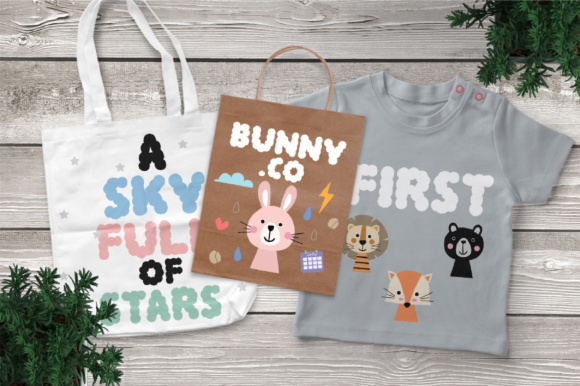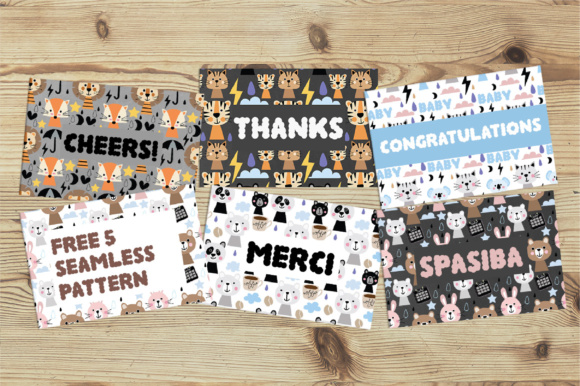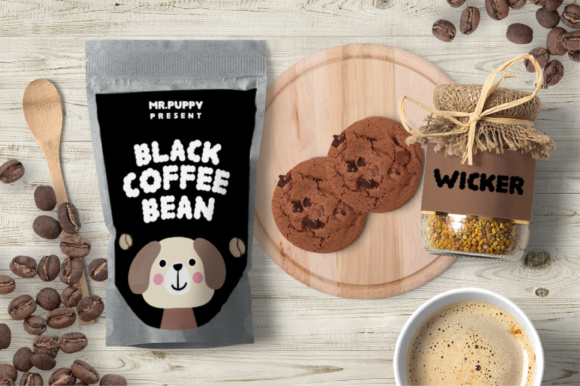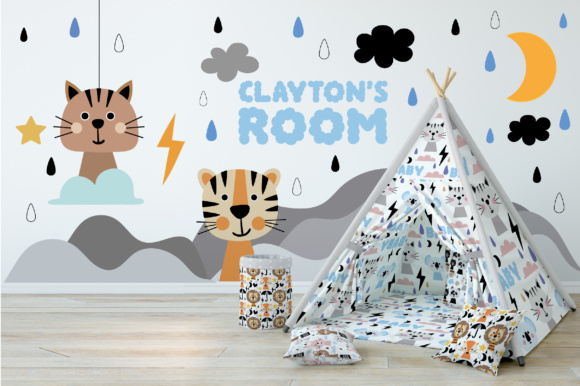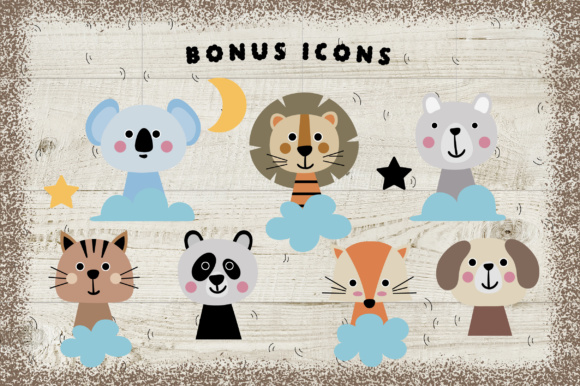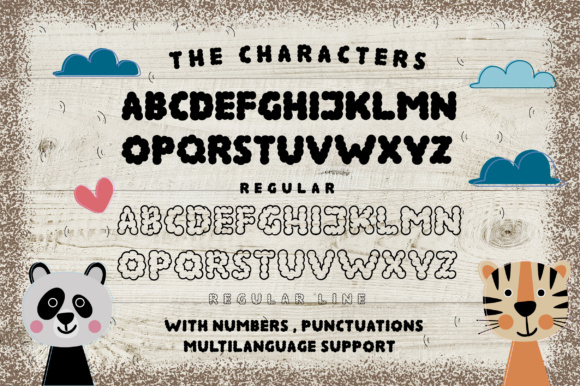
Introducing Altocumulus Font: Elevate Your Designs with a Cloud-Inspired Twist
Are you tired of using the same old fonts in your designs? Look no further! Altocumulus Font is here to take your creative projects to new heights. Inspired by the majestic altocumulus clouds, this font is not only visually stunning but also incredibly versatile. In this article, we’ll dive into the features and benefits of Altocumulus Font, and explore how it can become your go-to choice for all your design needs.
A Bold and Unique Font for Creative Minds
Altocumulus Font is a bold and eye-catching typeface that’s perfect for designers, crafters, and anyone looking to add a touch of personality to their work. With its cloud-inspired design, this font is sure to stand out from the crowd and leave a lasting impression on your audience. Whether you’re working on a logo, brochure, or social media graphics, Altocumulus Font is the perfect choice.
Two Styles to Suit Your Design Needs
One of the standout features of Altocumulus Font is its versatility. The font comes in two different styles: regular and lined. The regular style is perfect for bold and eye-catching designs, while the lined style adds a touch of sophistication and elegance. Whether you’re looking for a font that’s fun and playful or professional and sleek, Altocumulus Font has got you covered.
Acute Animal Icons to Add a Touch of Whimsy
But that’s not all! Altocumulus Font also comes with a set of acute animal icons that are sure to add a touch of whimsy to your designs. From cute and cuddly creatures to majestic and powerful beasts, these icons are perfect for adding a personal touch to your work. Whether you’re designing a children’s book, a website, or a social media campaign, these icons are sure to delight your audience.
5 Seamless Patterns to Take Your Designs to the Next Level
In addition to the font and icons, Altocumulus Font also comes with 5 seamless patterns that are perfect for adding texture and interest to your designs. From subtle and sophisticated to bold and playful, these patterns are sure to elevate your work and take it to the next level. Whether you’re designing a brochure, a website, or a product label, these patterns are the perfect finishing touch.
Why Choose Altocumulus Font?
So why choose Altocumulus Font for your design needs? Here are just a few reasons:
- Unique and eye-catching design: Altocumulus Font is a one-of-a-kind typeface that’s sure to stand out from the crowd.
- Versatile and flexible: With two styles, acute animal icons, and 5 seamless patterns, Altocumulus Font is perfect for a wide range of design projects.
- High-quality design: Altocumulus Font is designed to the highest standards, ensuring a professional and polished finish.
In conclusion, Altocumulus Font is a cloud-inspired typeface that’s perfect for designers, crafters, and anyone looking to add a touch of personality to their work. With its bold and unique design, versatile styles, acute animal icons, and seamless patterns, this font is sure to elevate your designs and take them to new heights. So why wait? Download Altocumulus Font today and start creating stunning designs that will leave a lasting impression on your audience.